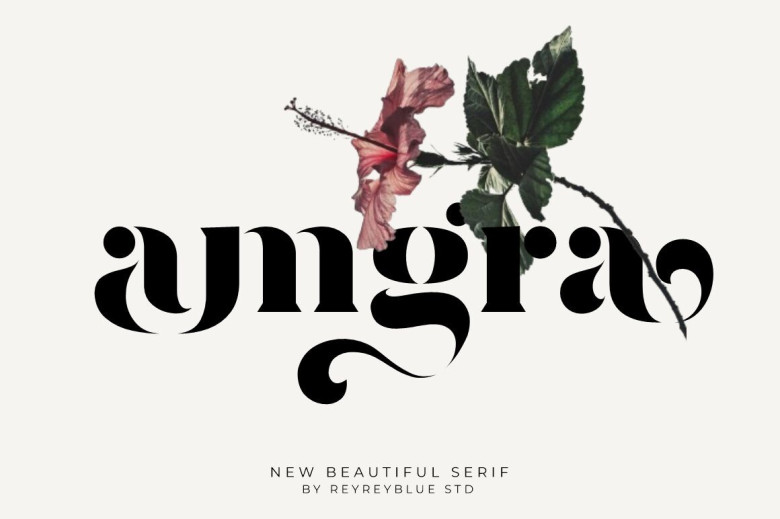
Amgra Font
Introducing Amgra. It looks chic, and very much contemporary as it is a kind of stencil font. This exquisite typeface contains a guy of gorgeous alternates and connectors. This type of font is specifically designed and more suitable to be used particularly on logos, headlines, signages and other numerous formal form like invitations, logos, signages, magazines, books, greeting/wedding cards, packages, fashion, makeup, stationaries, novels, labels, or any advertising use. This product has been designed to complement your digital images and make them even more fantastic.
Amgra Serif Font